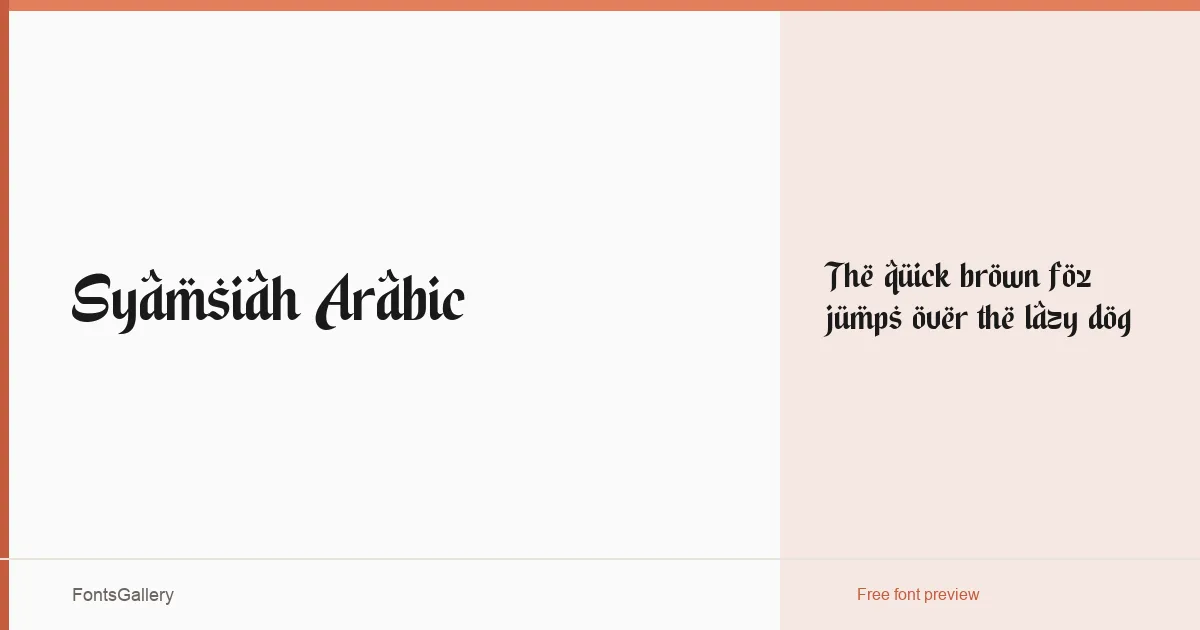
About Syamsiah Arabic Font
Syamsiah Arabic is a display typeface crafted by Zain Fahroni under Sunny Dayz and Company, bringing a distinctive Arabic-inspired aesthetic to modern design projects. With its commanding presence and ornate character, this font is built to make a strong visual impression across a wide range of creative applications. It merges vintage sensibility with bold luxury to deliver a typeface that feels both timeless and striking.
Syamsiah Arabic embodies an elegant yet bold personality, drawing on vintage charm and a sense of luxury to define its letterforms. The characters carry a richness and weight that evoke sophistication, making each glyph feel purposeful and refined. This display-oriented design commands attention while maintaining an ornate, high-end aesthetic throughout.
Syamsiah Arabic is ideally suited for logos, posters, branding campaigns, social media visuals, and magazine layouts where a bold, luxurious statement is desired. Its display nature makes it most effective in larger settings where its elegance and vintage character can be fully appreciated. It pairs beautifully with the clean neutrality of Helvetica or the complementary styling of Aresink for a well-balanced typographic composition.